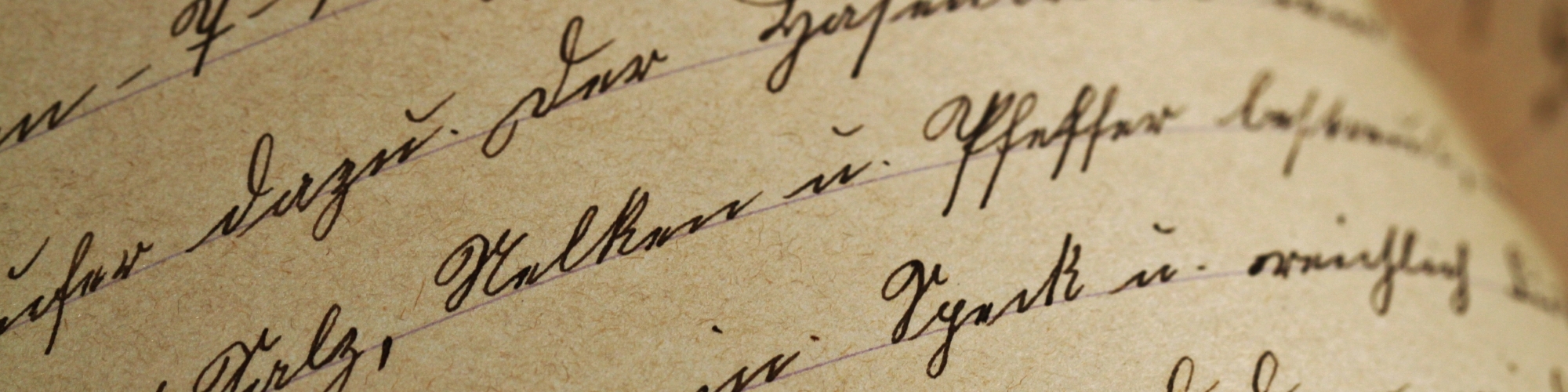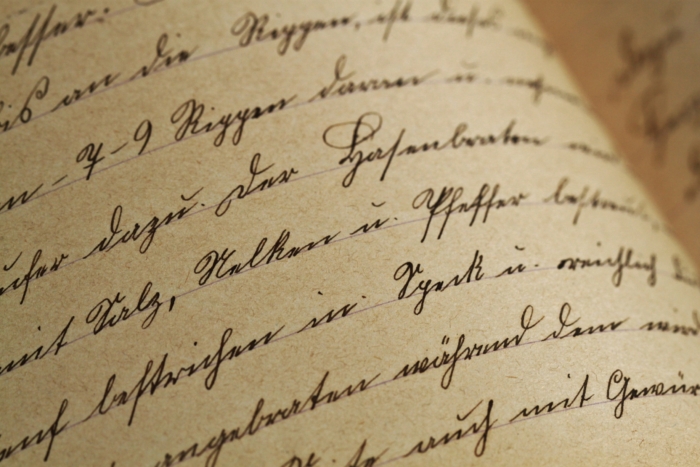
The word “calligraphy” is derived from two Greek words, denoting “beautiful writing”. Calligraphy or the art of writing has thousands of years in its history and development, and indeed calligraphy fonts, which we often use these days on our PCs to create a postcard or a wedding invitation card, are absolutely about aesthetics, refinement, creativity, and pure beauty.
Young Love ES
Fine, tender, and delicate, this Young Love ES calligraphy free font is the demonstration of calligraphy in its traditional meaning. The font has vivid features of a handwriting script, so it will suit perfectly for personal messages, invitations, or greetings. Besides, it can be used for some art logo designs. The font is supplied with the impressive set of character maps supported, thus making this free font a very flexible tool, allowing the use of multiple specific language characters and symbols.
The King & Queen
The King & Queen is another Calligraphy font, available for free download online. This font has some traces of gothic or alternative style due to its grungy background. Besides, font designer used different line widths, which makes the font look more “manual” or “hand-written”. Some thorny lines and edges add specific chic to this free Calligraphy font; so, it is definitely recommended for designers, who like to experiment with fonts and are not afraid of mixing classic design with alternative shades.
Cygnet
Clear, reserved, and appropriate – I would use those adjectives to describe Cygnet calligraphy font, which is also available for free download. The font looks pretty rounded but without those fancy curls, as we can see in other calligraphy fonts. Both lowercase and upper Roman characters are included in the Cygnet character map. Besides, it also contains a vast variety of additional characters, allowing the use of this font in alphabets with accented letters.
Liberate Wide Normal
Designed by Bay Animation Inc., this script font features medium weight and expanded proportion. The font is supplied with different character maps to suit the needs of the most exacting designers, who want to use some peculiar characters and signs. Along with the Basic Latin character map, you will also receive Latin Supplement, Latin Extended, General Punctuation, and even Letterlike Symbols in one box.
ChopinScript
Chopin font is one of the most favorite free fonts in calligraphy category. It has already become a number one choice for many millions of designers, searching for a nice-looking, appealing, and neat calligraphy font. Uppercase letters look pretty fancy; however, this never prevents easy reading of a text; besides, the lowercase characters are designed in a traditional calligraphy manner. The font consists of 129 characters, including special symbols.
CalligraphyFLF
With 227 characters included in the character map, Calligraphy FLF free font is a very good option for those creative applications, where strict and reserved calligraphy is expected. No fancy curls, all the attention is paid to content rather than to form. I would say this free font has a definite English scent of punctuality, demureness, and reliability. Calligraphy FLF was designed by Richard A. Ware, one of the representatives of the old school of font designers.
NK39pc_D
Peculiarity of this free calligraphy font is that along with basic Latin characters, it also contains Cyrillic and Greek symbols, which makes it a great choice when working with the alphabets other than Roman A-Z alphabet. Besides, the font contains mathematical operators and punctuation marks. The font has a classic calligraphy look with Roman alphabet, though with Cyrillic letters it is really curly, which makes it resemble some hand-writing art. The only thing I noted is that this font looks pretty small in regard to the font size chosen, however this can hardly be a drawback of this very nice and professional calligraphy font, friendly to Cyrillic and Greek letters.
Champignon
There are two variants of this free font as shown on the samples above. The classic Champignon looks very pretty and appropriate in terms of classic calligraphy principles. Champignon Alt Swash looks differently and creates the feeling of sprawling handwriting.
Windsong
Windsong is another free calligraphy font, featuring clear and light design. Light as the wind and smooth as a classic song, this font by Bright Ideas represents a traditional handwriting calligraphy. Both uppercase and lowercase letters look very close to the letters from school books. Numbers, as well as punctuation marks, are also present in the character map (247 characters in total). The font is characterized as semi-light in weight and medium (normal) in width. Windsong will be a good choice for projects, where classic calligraphy with handwriting look is expected.
Lainie Day
Lainie Day with its delicate shapes of characters (Roman alphabet only), classic, but not boring lines, is definitely a must have calligraphy font for every designer. It looks like a golden middle between strict and reserved traditional calligraphy and modern fancy handwriting with many twirlings. Again, using this font you will stay focused on the message expressed by letters, and not on the form of those letters. Anyway, Lainie Day just like any other calligraphy font is the combination of content and pure aesthetics.